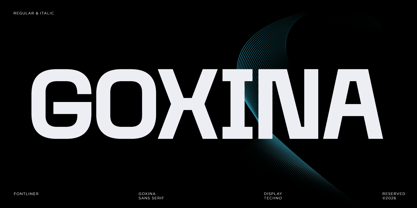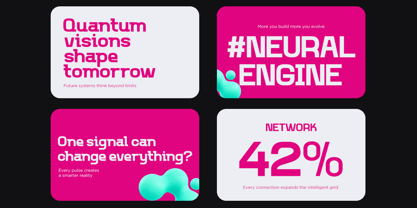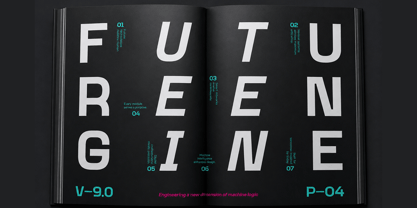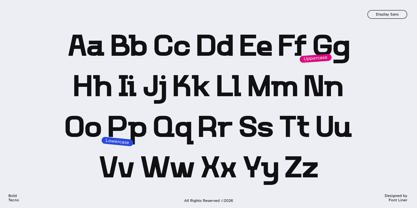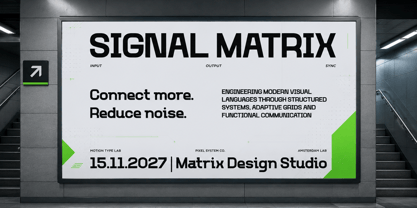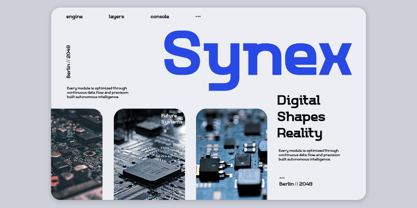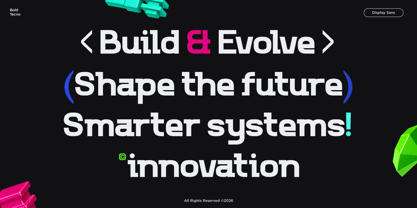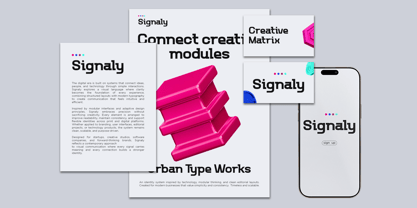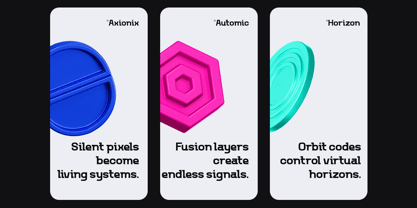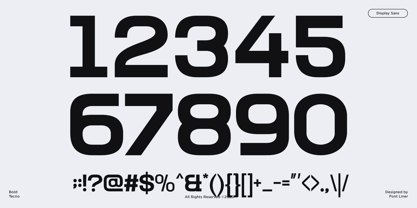
Goxina
The Goxina Font Family was designed by Ghina Luthfiarieska and published by Font Liner. Goxina contains 2 styles and family package options. More about this family
Goxina is a bold futuristic sans serif font crafted to bring a clean, technological aesthetic to modern visual communication. Featuring geometric proportions, strong letterforms, and minimalist construction, Goxina delivers a powerful presence while maintaining excellent readability across both digital and print media. Available in Regular & Italic, it offers the flexibility to create dynamic layouts with a refined contemporary look.
Inspired by innovation, digital interfaces, and next-generation branding, Goxina is perfect for projects that demand a sleek and professional identity. Whether you're designing for AI startups, technology companies, gaming brands, software products, automotive concepts, esports, fintech platforms, or futuristic editorial layouts, Goxina helps every composition feel modern, confident, and forward-thinking.
Designed for creators who value precision and versatility, Goxina performs beautifully in logos, UI/UX design, websites, mobile applications, advertising, social media, posters, packaging, presentations, and motion graphics. Making it easy to use across desktop and web environments while delivering consistent performance in every creative workflow.